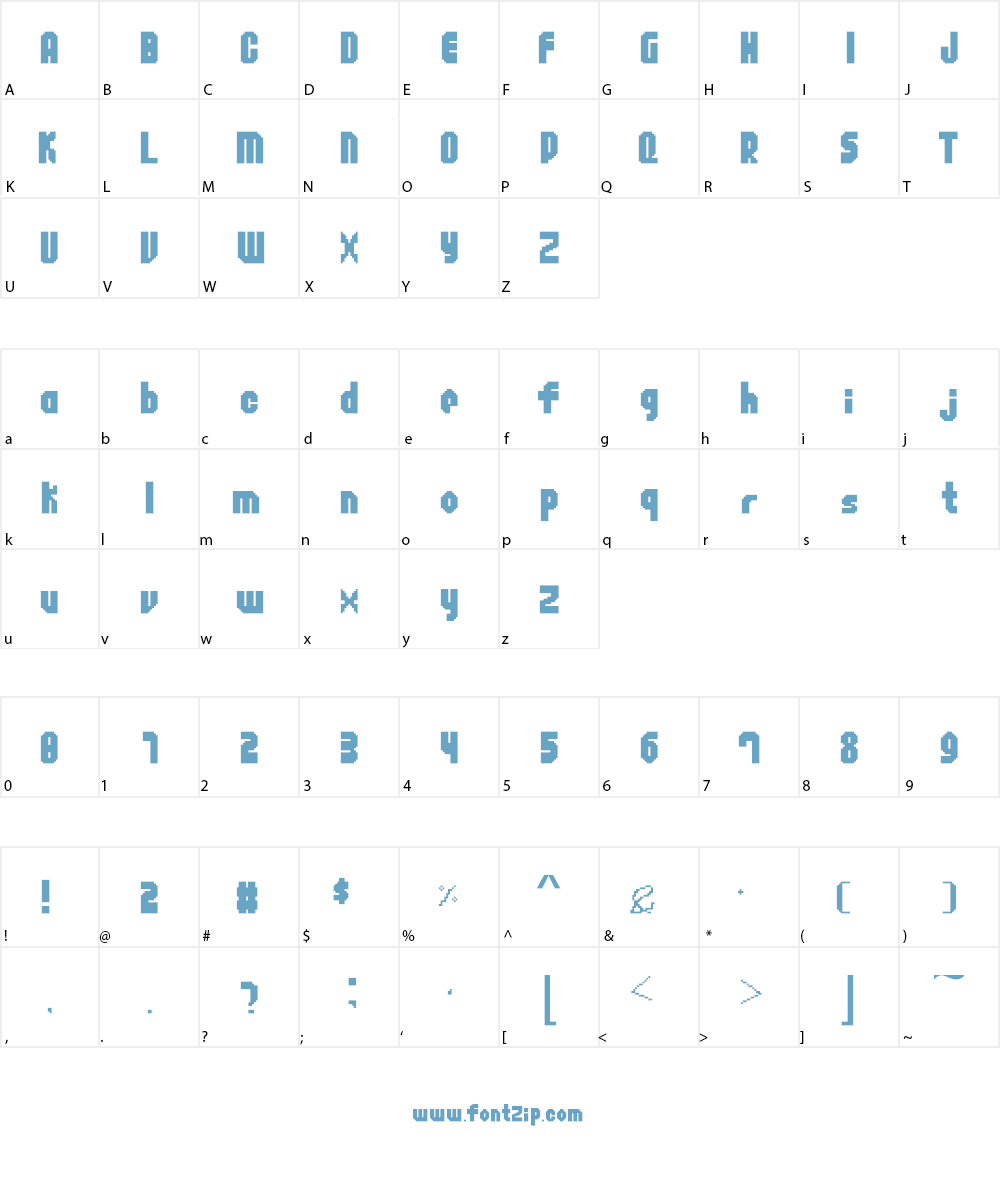
The official font used for FLAPPY BIRD,
SUPER BALL JUGGLING and SWING COPTERS. Originally made by Nguyễn Hà Đông (Dong Nguyen) of .GEARS Studios. First used in version 1.2 of Flappy Bird. Made with FontStruct.